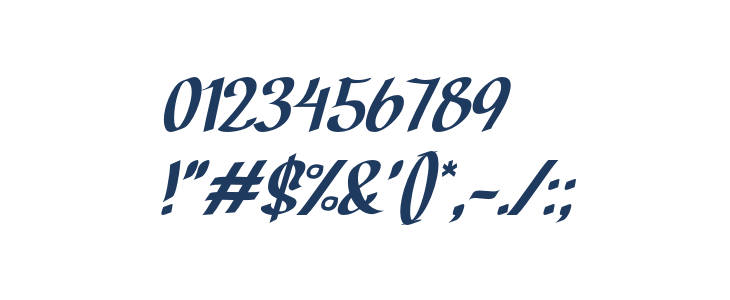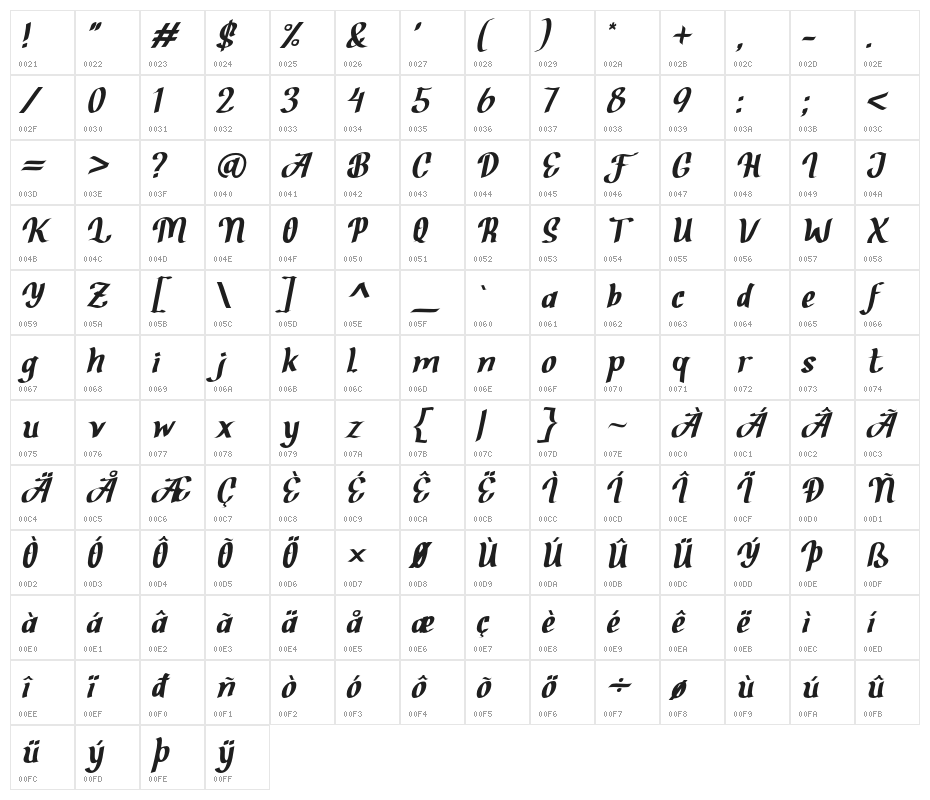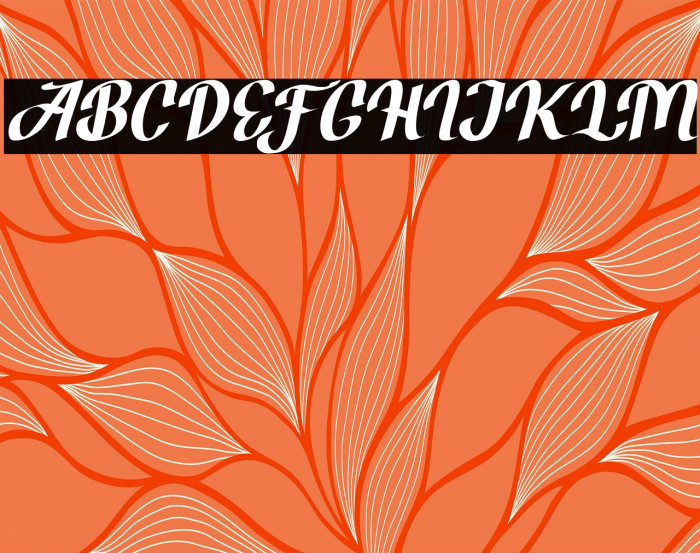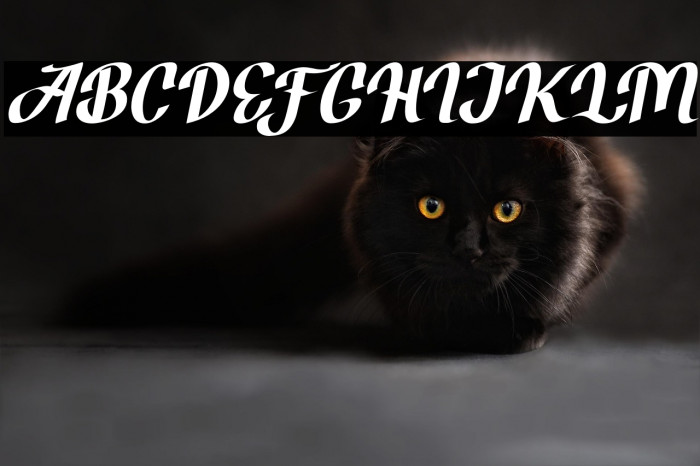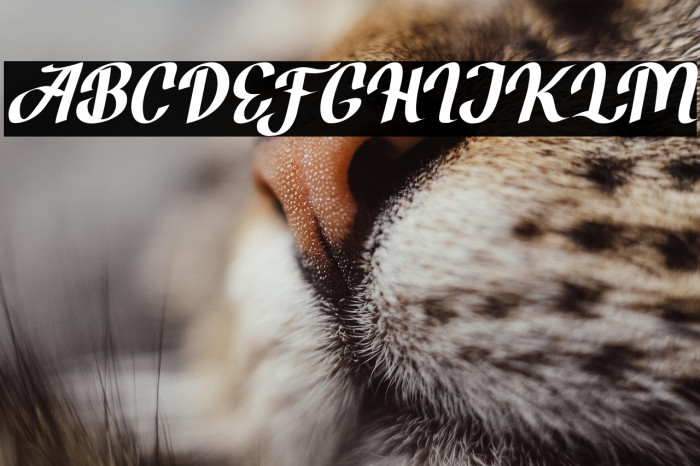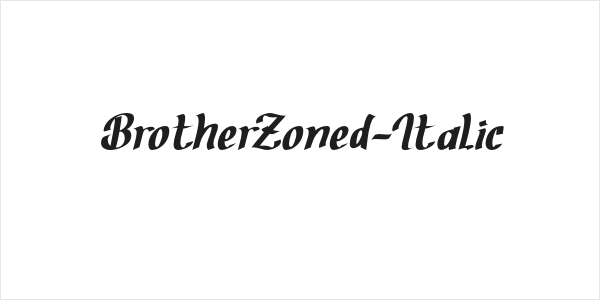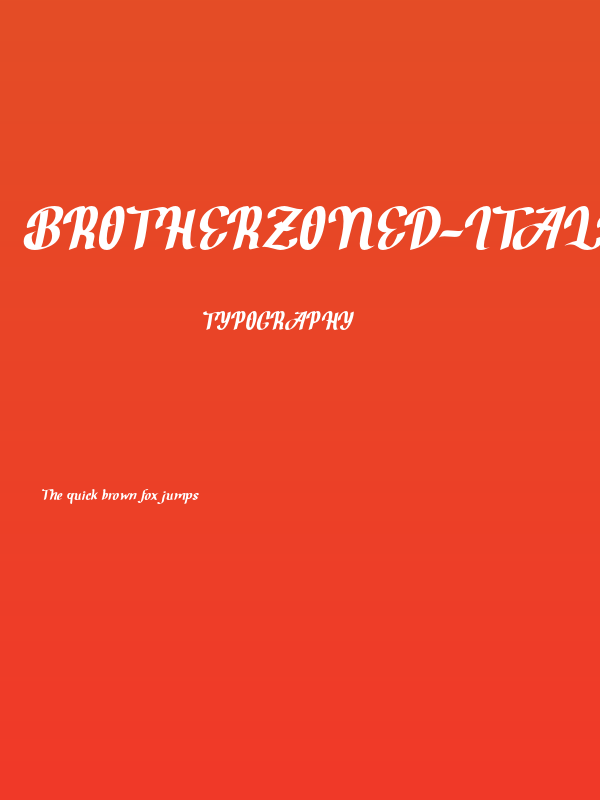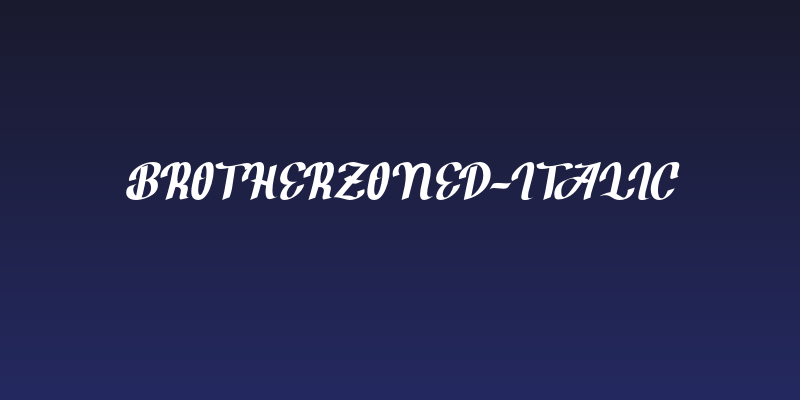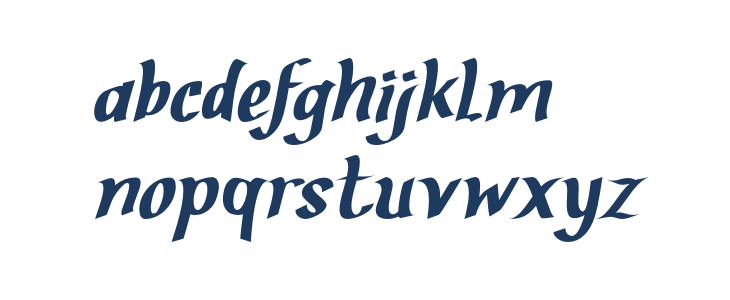
BrotherZoned-Italic Font
BrotherZoned-Italic Description
This font features a bold and dynamic script style with a distinct italic slant, giving it a sense of motion and fluidity. The characters are closely spaced, enhancing the cohesive look of the text. The strokes are thick and consistent, providing a strong visual impact. The uppercase letters are slightly more ornate, with flourishes that add a touch of elegance, while the lowercase letters maintain a more straightforward yet stylish appearance. The numerals and special characters are designed to match the overall aesthetic, ensuring uniformity across all text elements.
| Use Case | Logos, Headlines |
| Proposed Projects | Ideal for branding, logo design, and headlines where a bold and stylish impression is desired. |